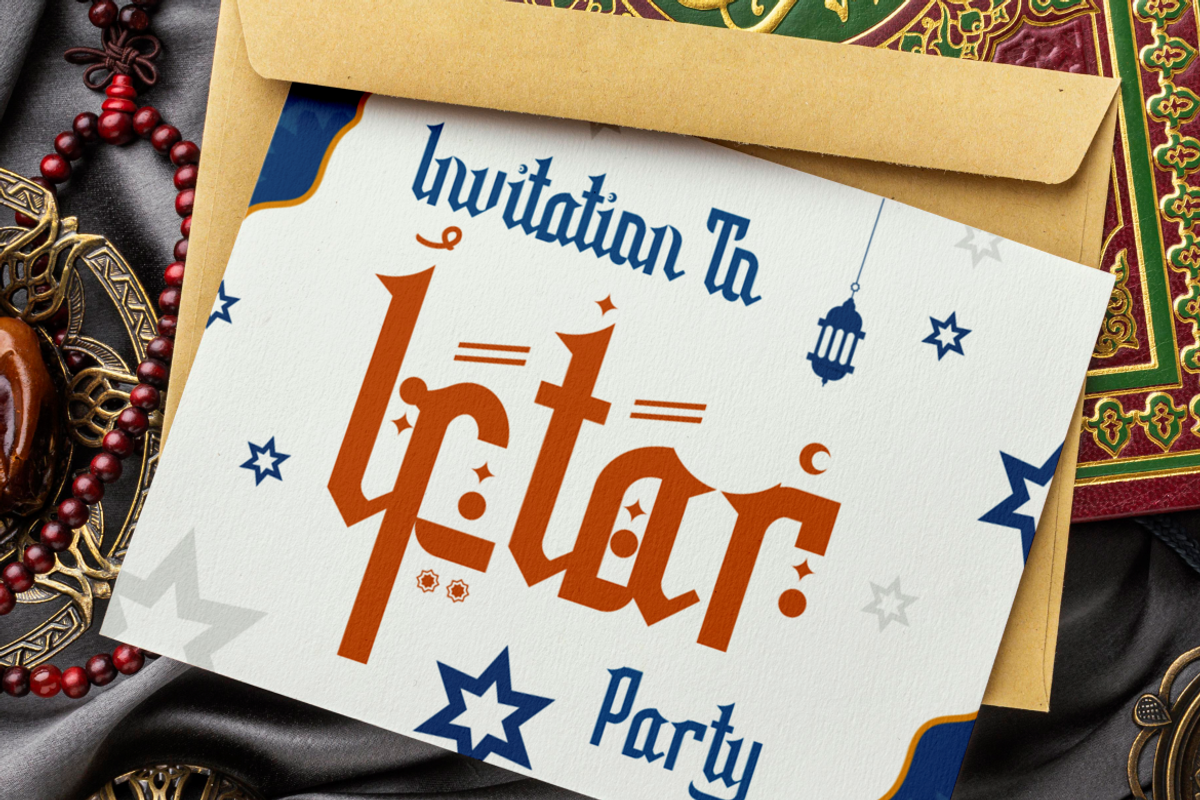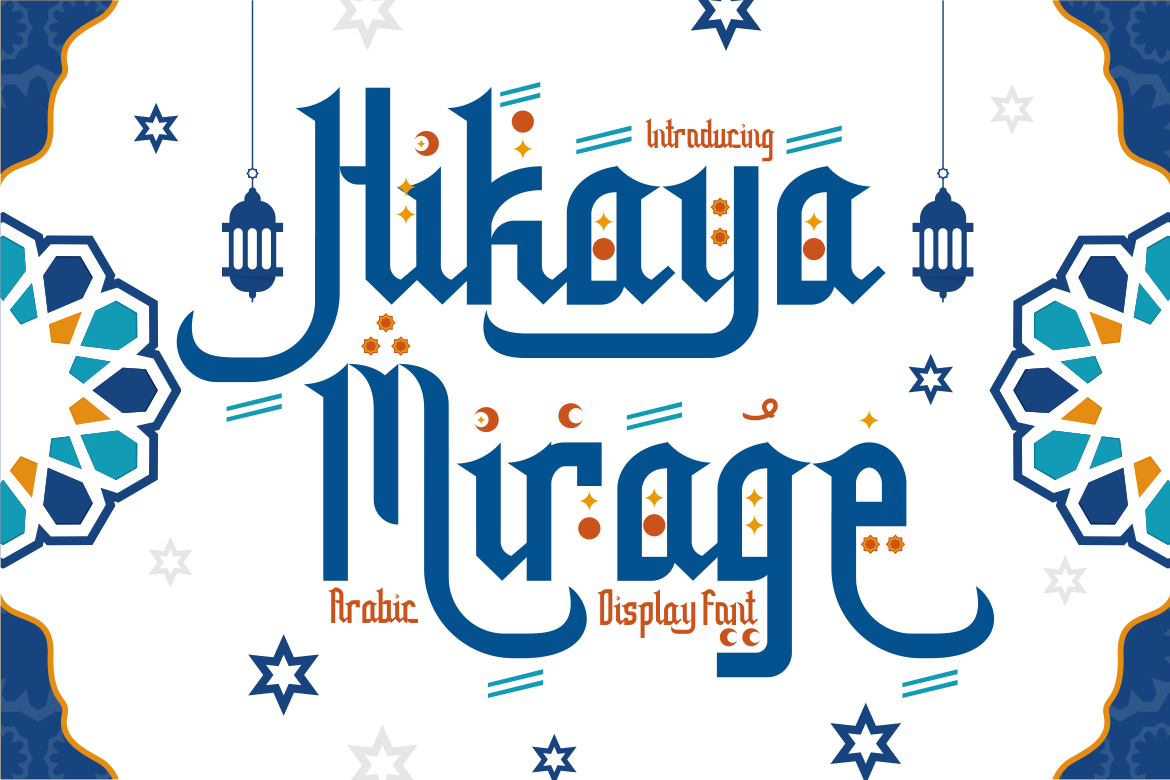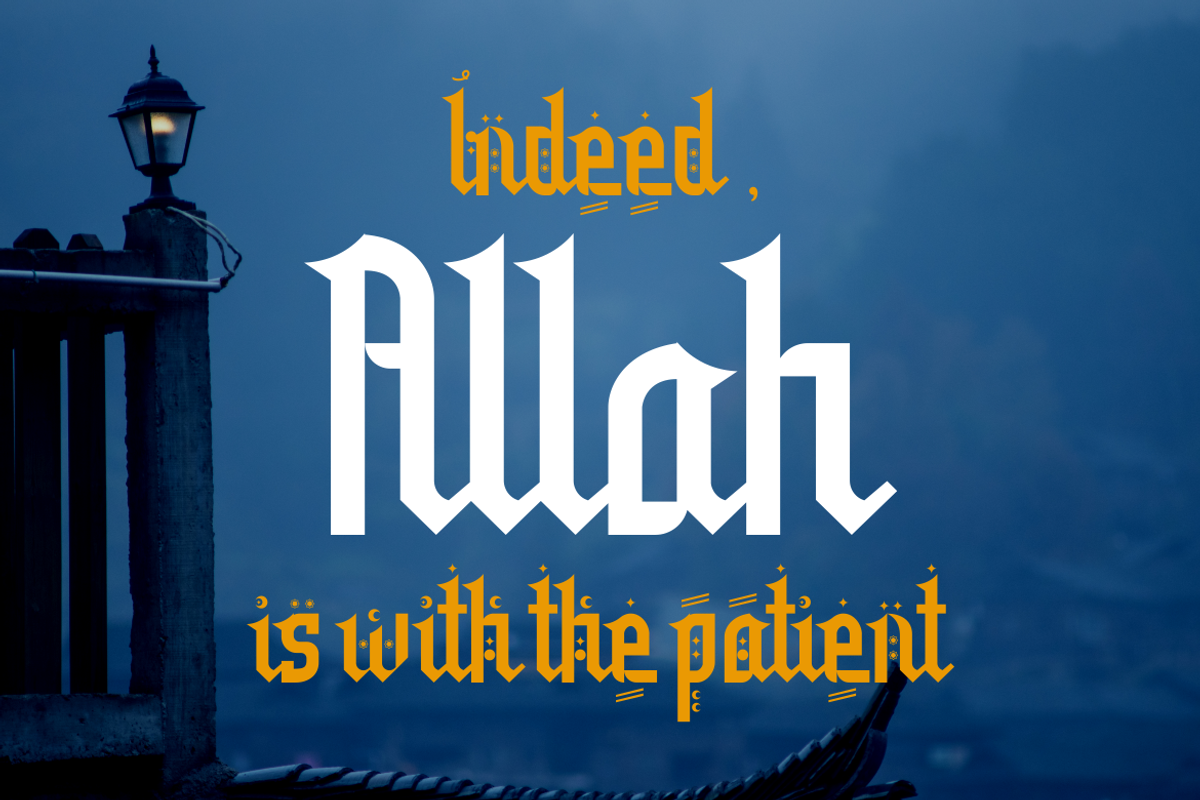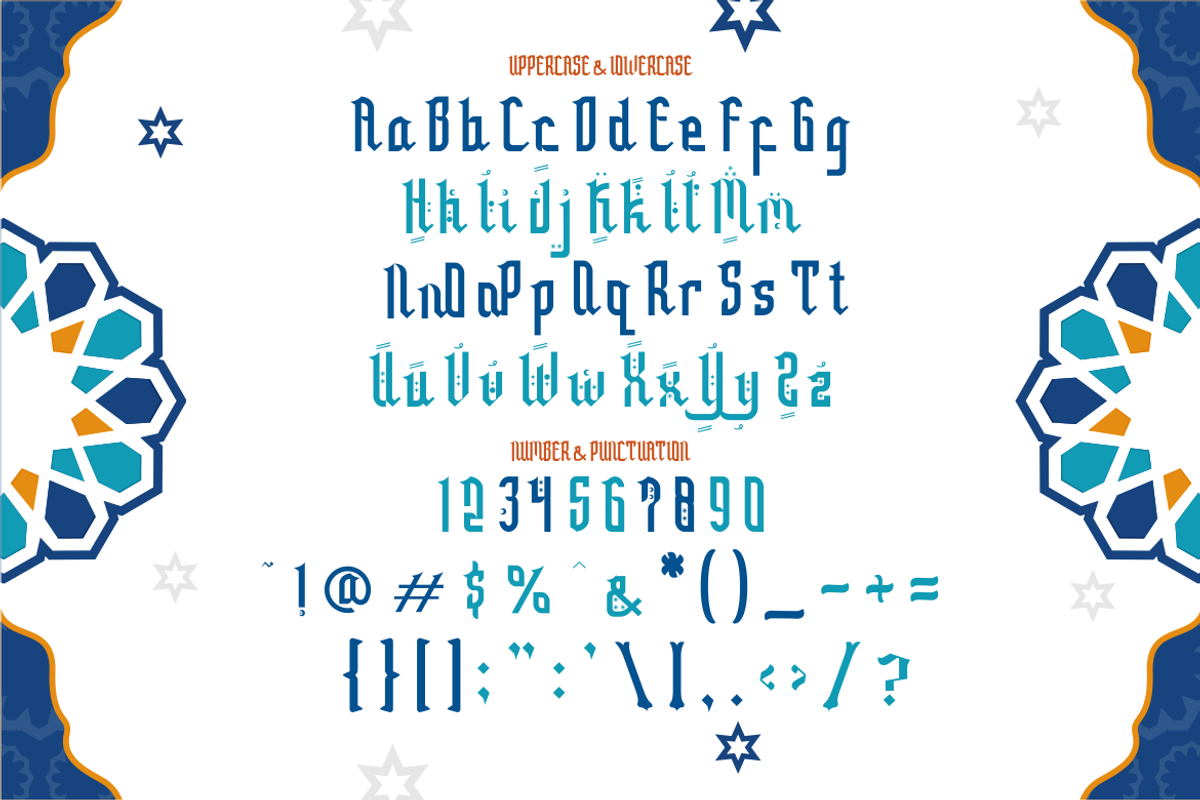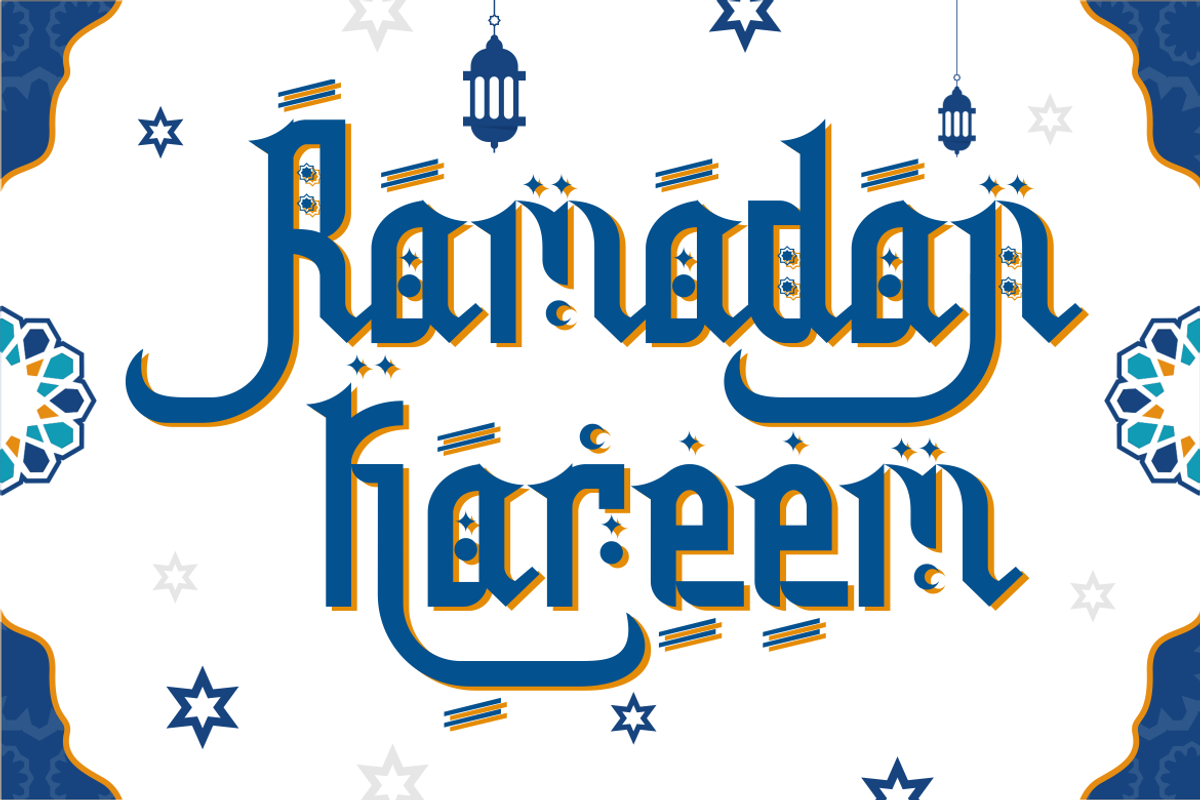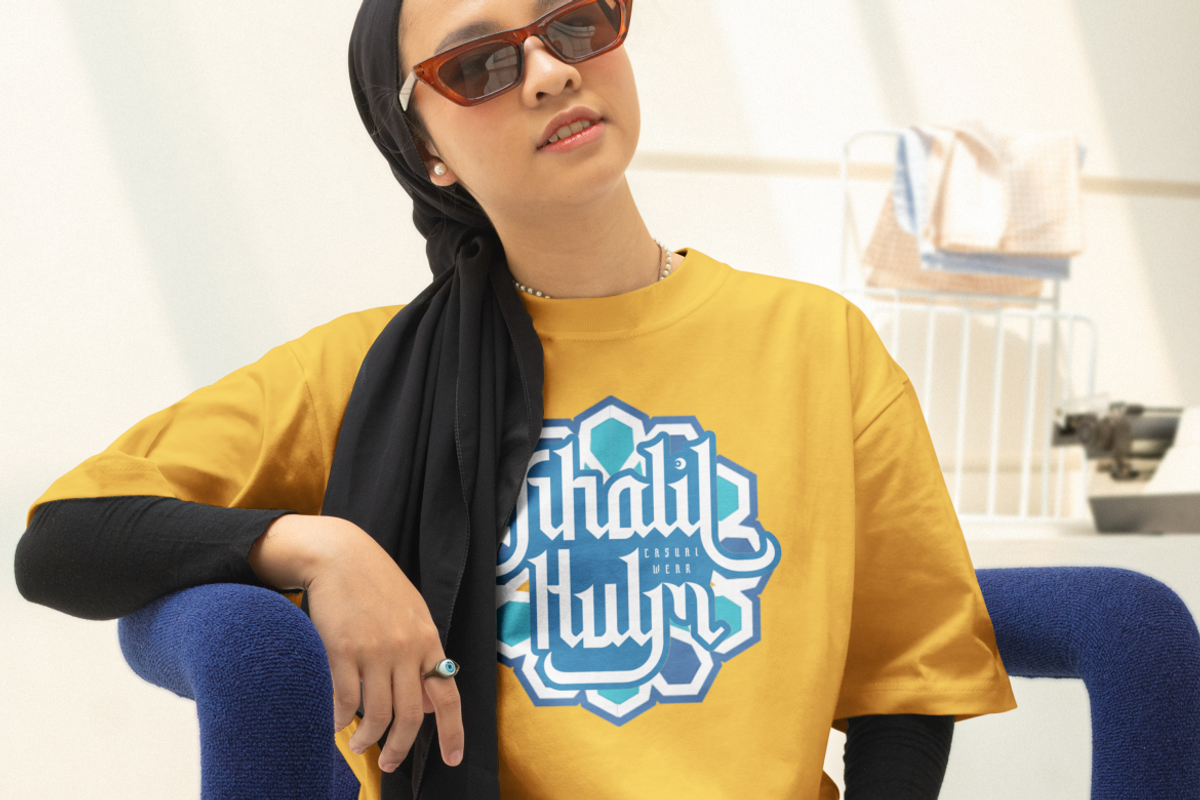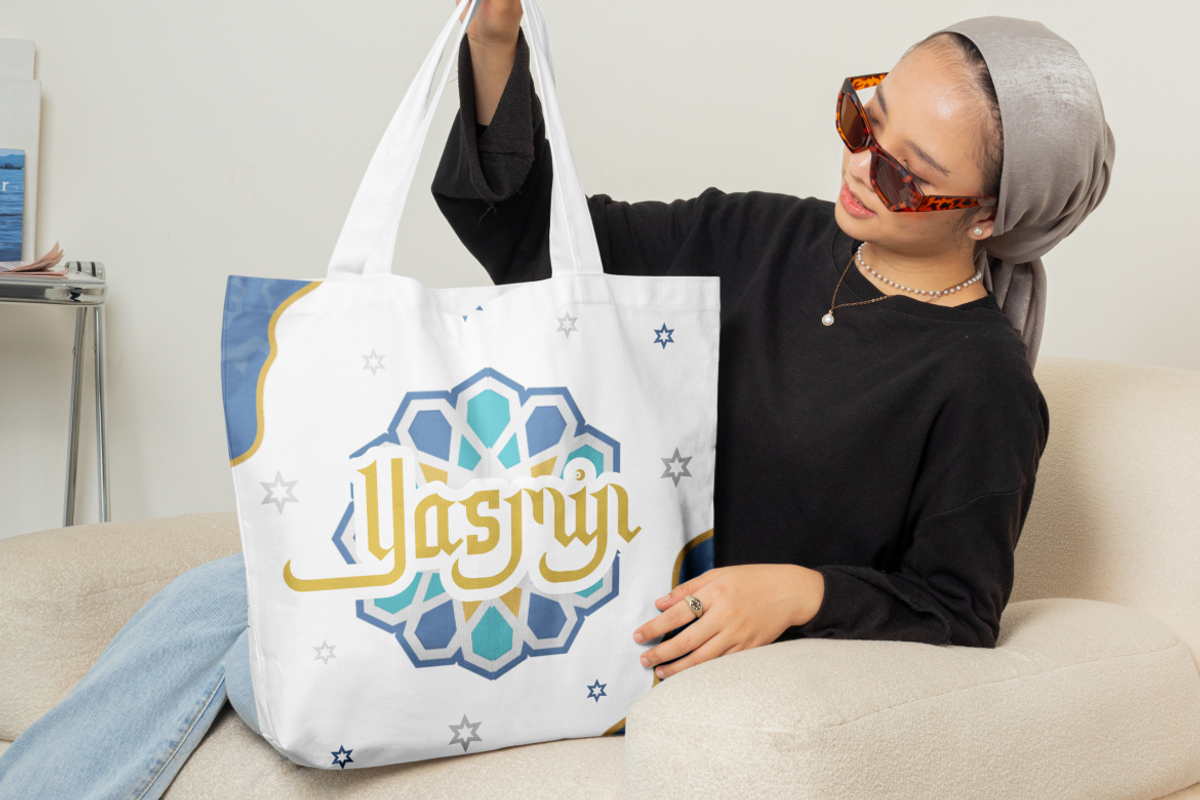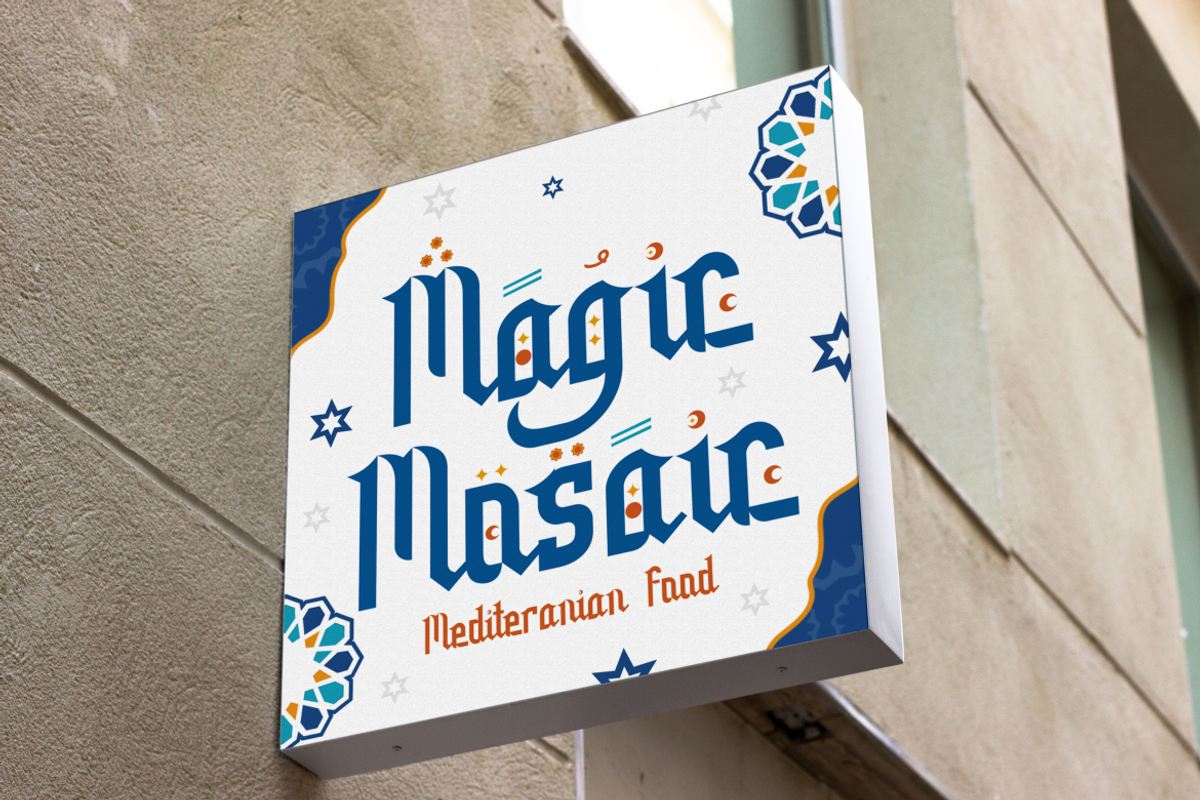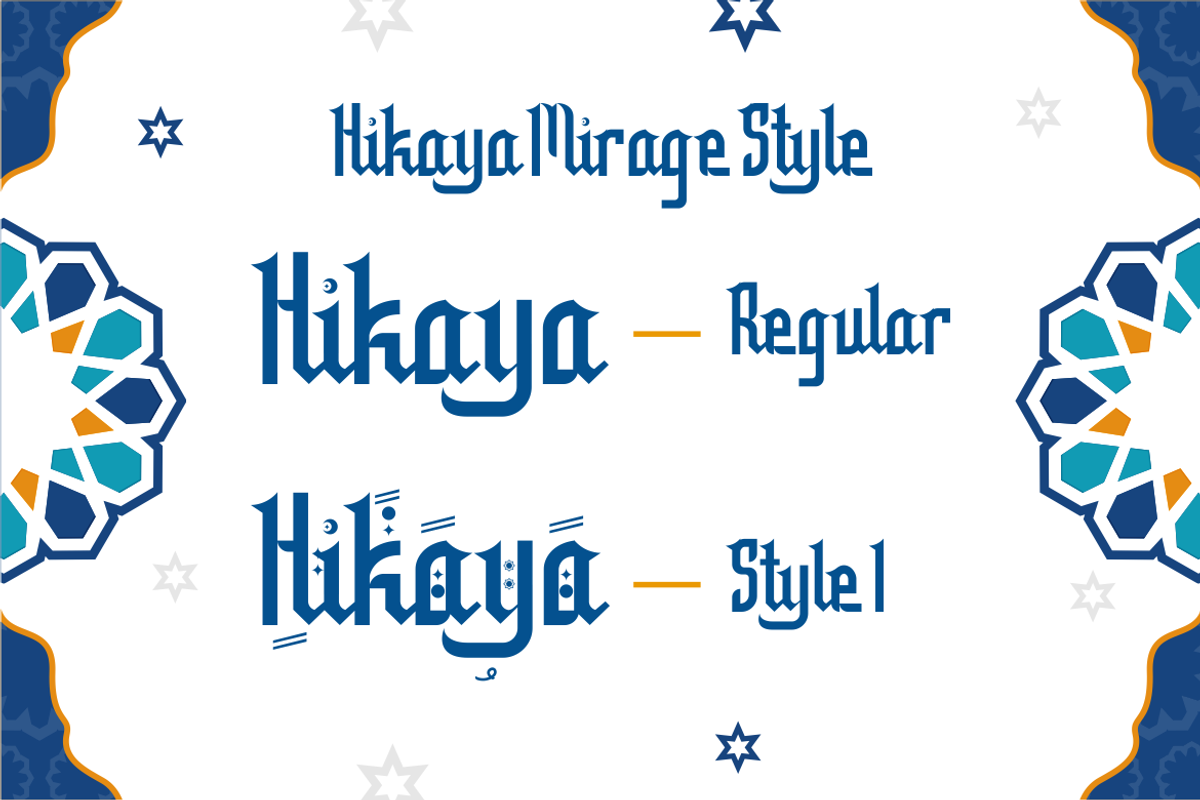
Hikaya Mirage - Arabic Display Font
Introducing Hikaya Mirage, an exquisite Arabic Display Font that embodies the enchanting beauty of the Arabian nights. With its elegant curves and sophisticated design, Hikaya Mirage is more than just a typeface; it’s a journey through the rich tapestry of Arabic culture. Each character is crafted with precision, reflecting the traditional calligraphy of the Arab world while infusing a modern twist that resonates with contemporary design aesthetics. Whether you’re creating a logo that demands attention, branding materials that speak volumes, or crafting an invitation that tells a story, Hikaya Mirage is your go-to font.
Perfect for an array of design needs, Hikaya Mirage shines in applications such as packaging, posters, titles, business essentials, greeting cards, stickers, children’s books, magazines, and any other design that seeks to connect with the Arabic theme. Its versatility makes it an invaluable asset for designers looking to add a touch of foreign elegance to their work. The font’s display quality ensures that your message stands out, while its cultural resonance brings a layer of depth and authenticity to your creations.